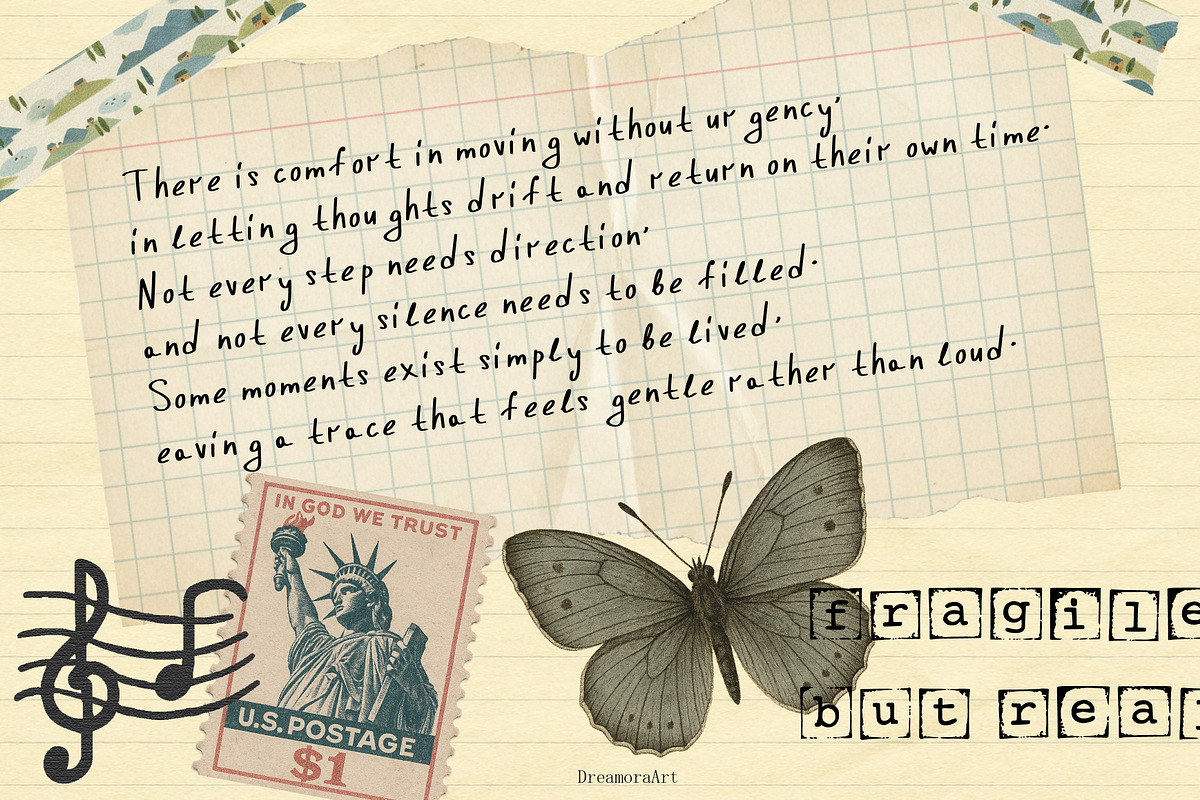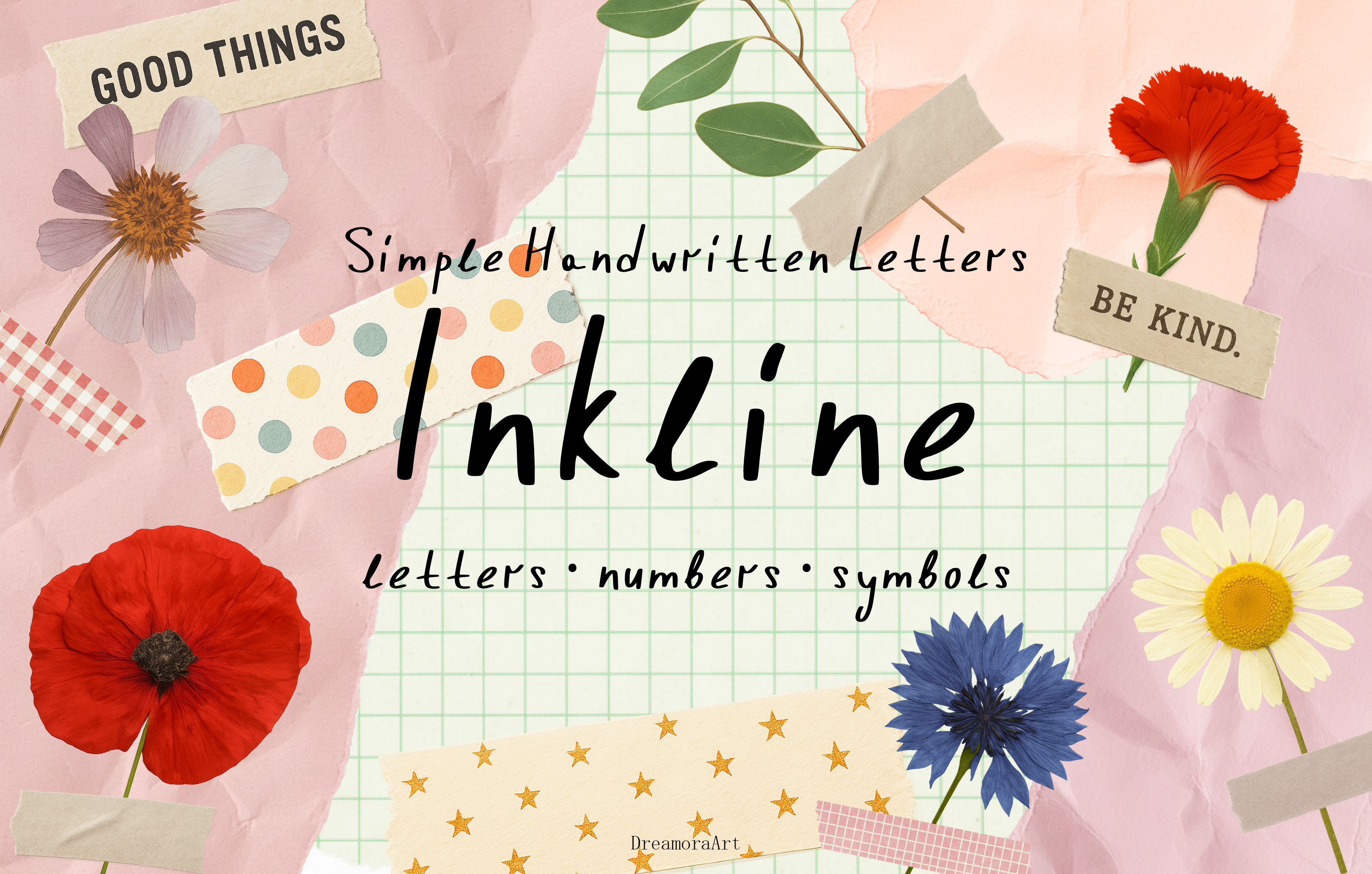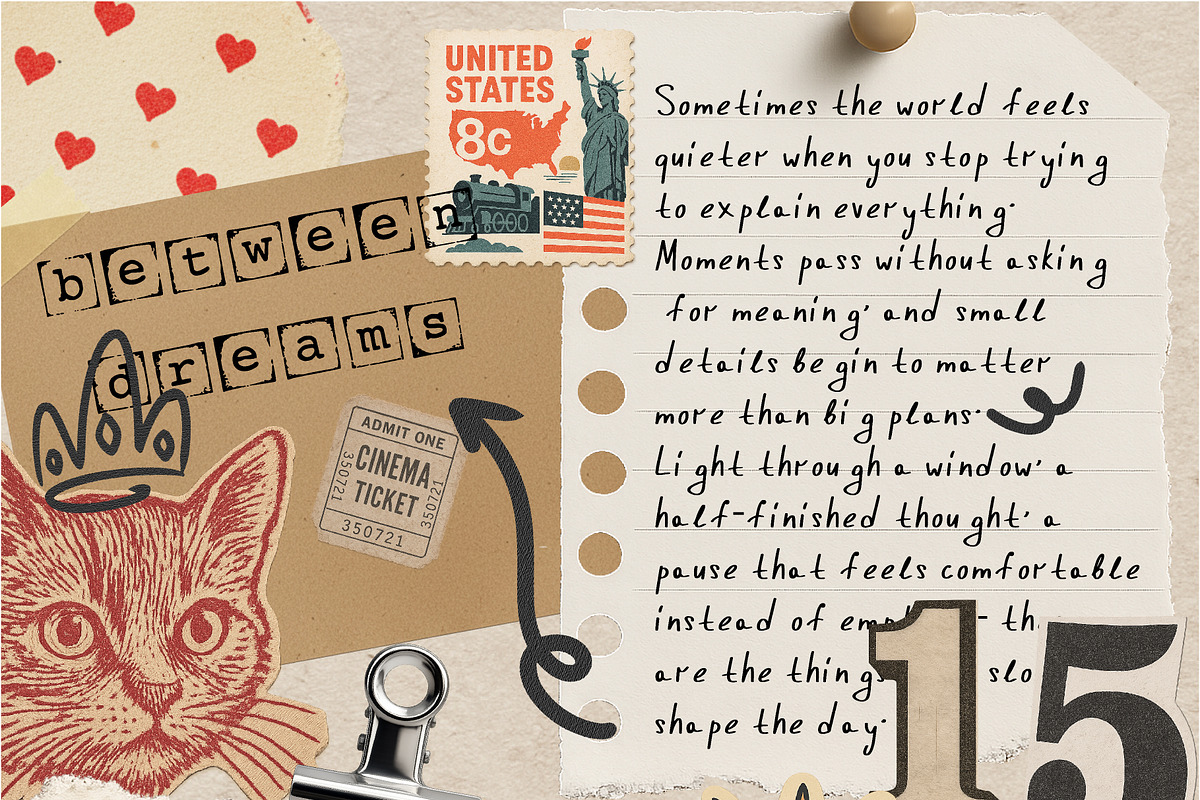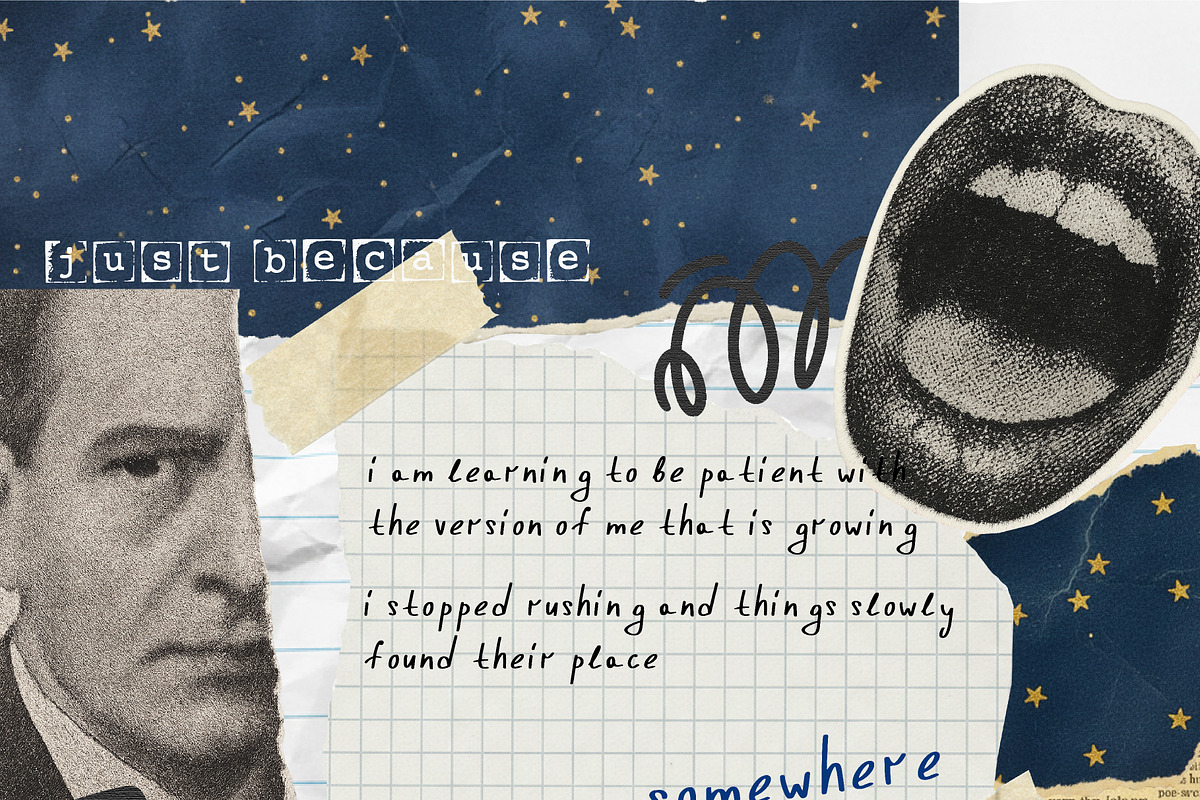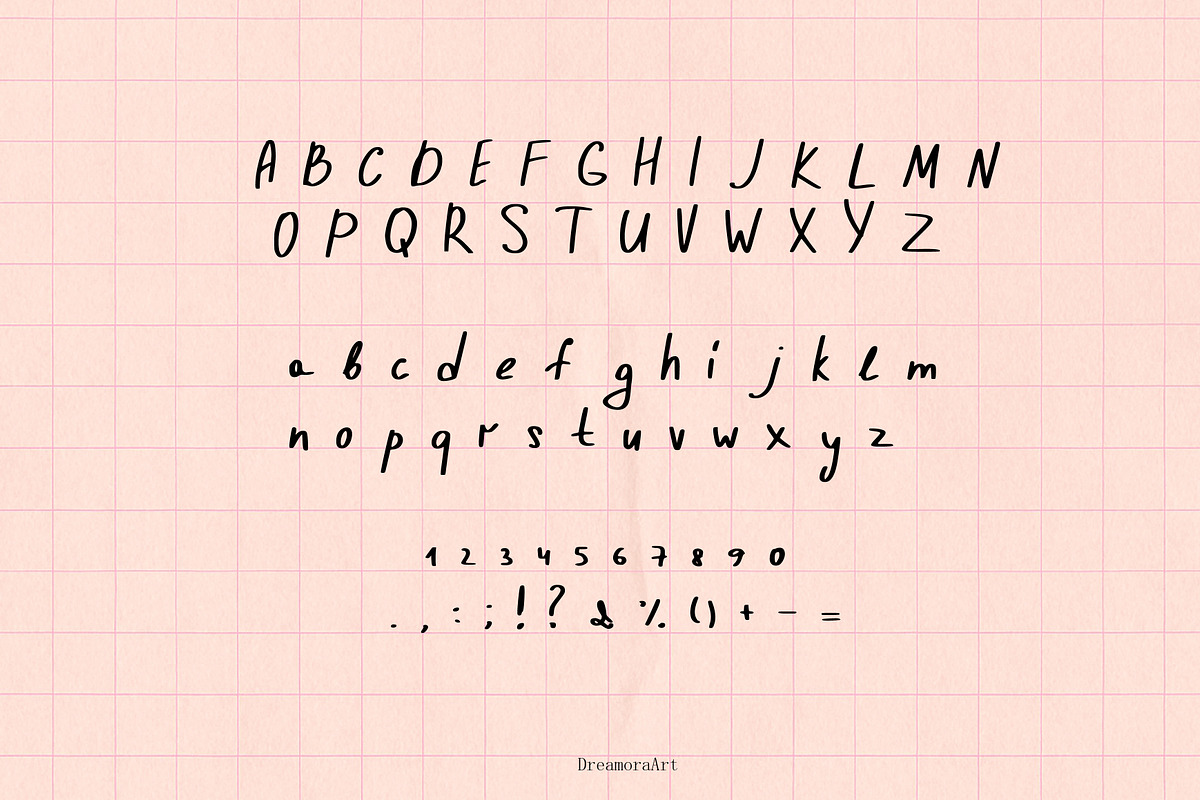
INKLINE - Handwritten Letters Font
Inkline is a simple handwritten font with a soft, natural flow and a calm, friendly character. The letters feel casual and organic, as if written with a fine ink pen, making the font perfect for warm, personal, and creative designs.
- Handwritten style